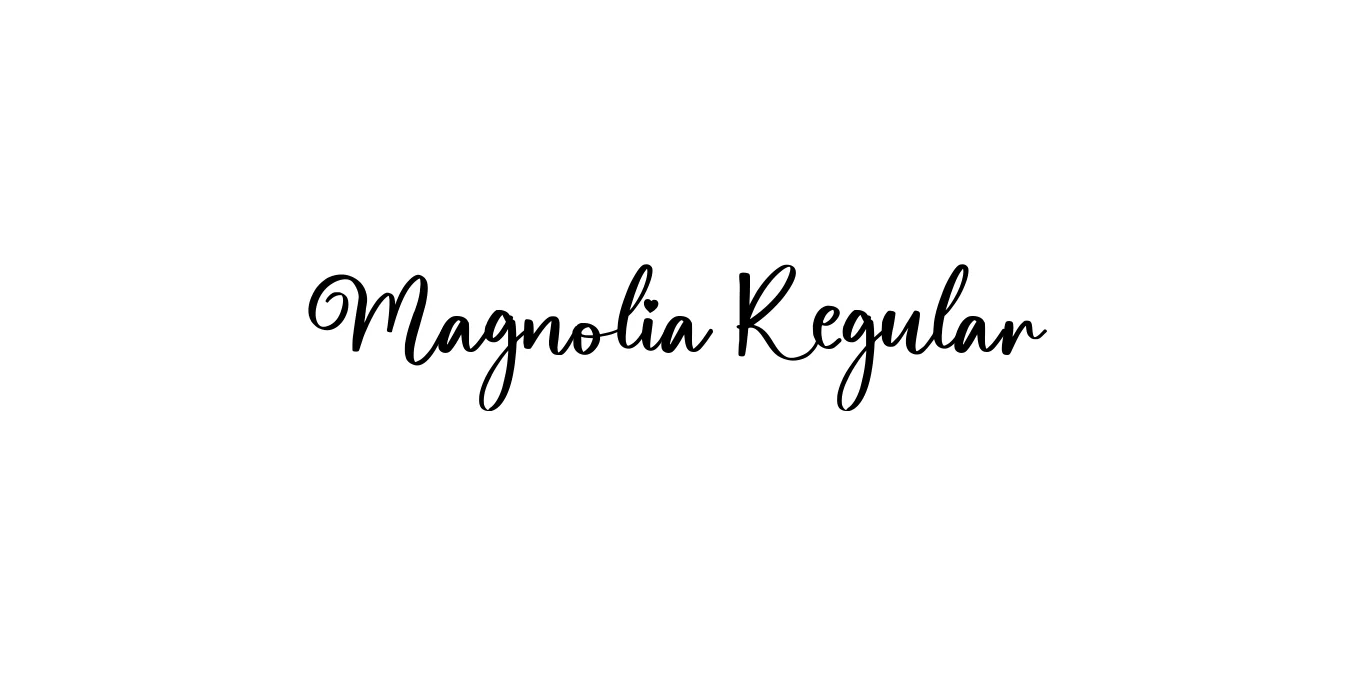
Magnolia Regular
Designed by Carine de Wandeleer
| Category | Calligraphic Script |
| Designer | Carine de Wandeleer |
Magnolia Regular, designed by Carine de Wandeleer for the Eurotypo foundry, is a sophisticated calligraphic typeface that draws inspiration from the graceful movements of 19th-century copperplate script. It was developed to capture the organic fluidity of manual handwriting while maintaining the structural integrity required for modern digital typesetting. The typeface serves as a bridge between traditional Spencerian influences and contemporary display needs, emphasizing a rhythmic flow and a delicate balance of thick and thin strokes.
Technically, Magnolia Regular features a generous x-height that enhances its legibility compared to more compressed formal scripts. The letterforms are characterized by their smooth, rounded terminals and open counters, which prevent the strokes from clogging at smaller point sizes. Its visual weight is masterfully distributed to ensure that the connectors between characters appear seamless, creating a cohesive typographic texture. The slight slant and consistent angle of the ascenders provide a sense of forward momentum, making it exceptionally effective for high-end branding and editorial headers.
Magnolia Regular Best Uses
Perfect for wedding invitations and high-end event cards.
Ideal for luxury fashion, cosmetics, and lifestyle logos.
Excellent for pull quotes and feature headlines in magazines.